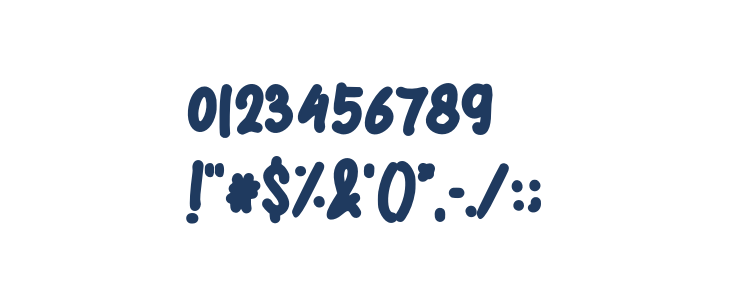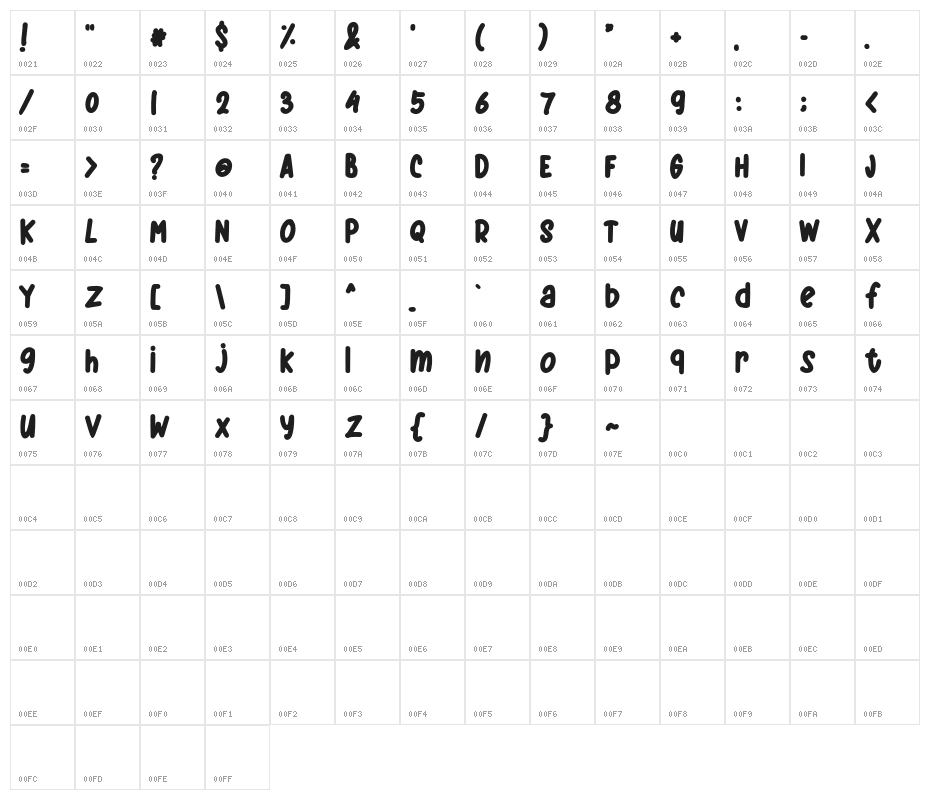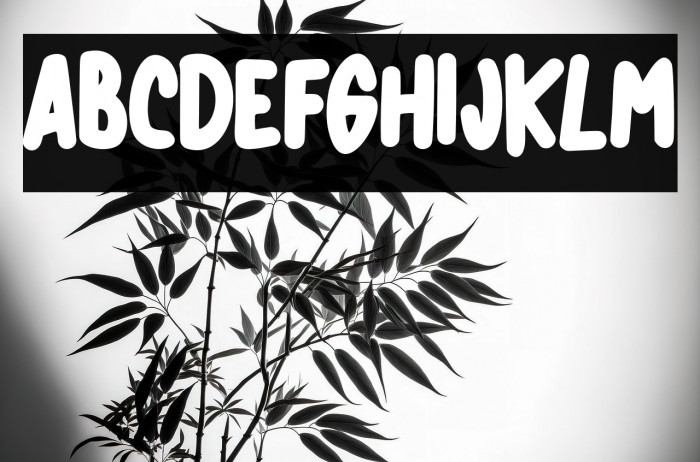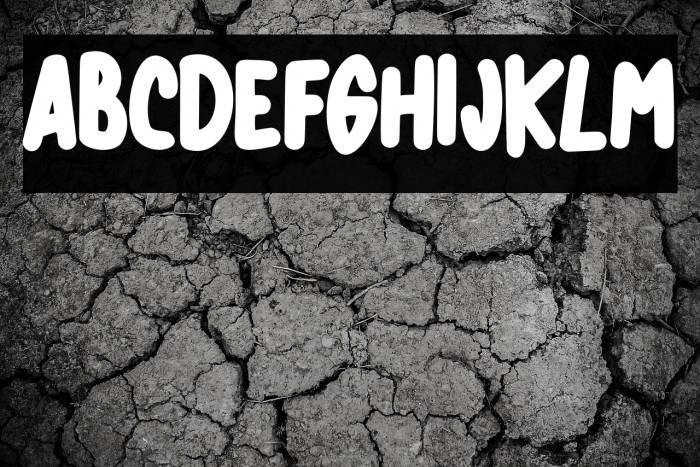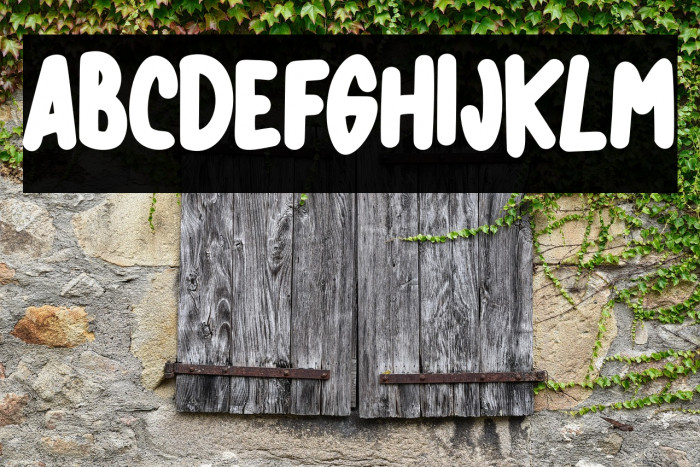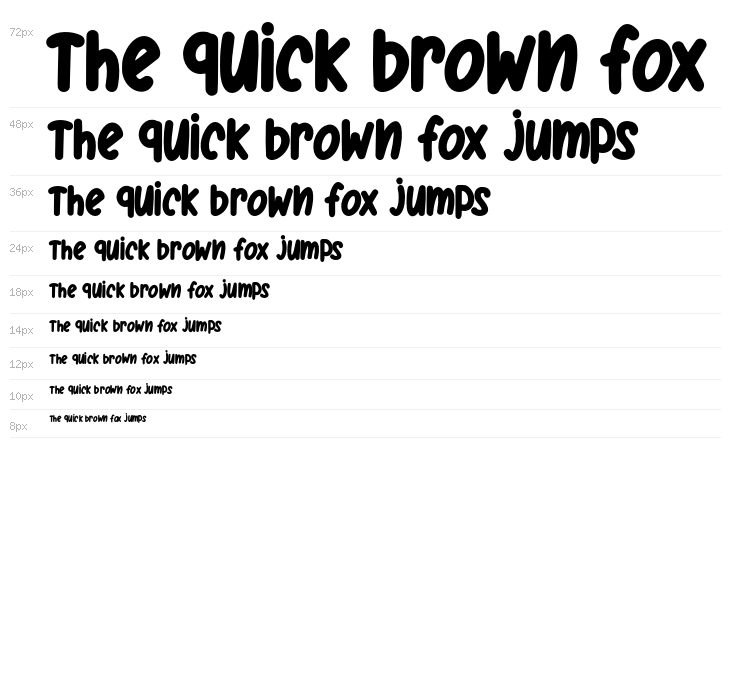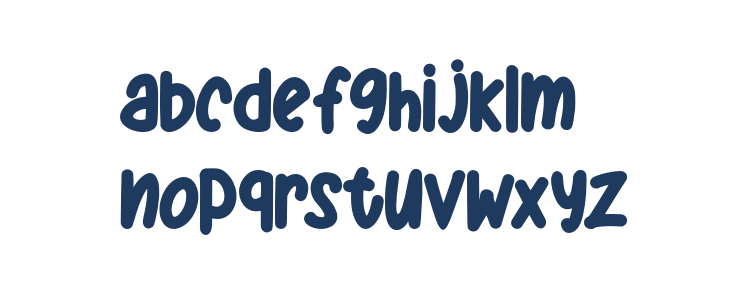
This font features a bold and playful style with rounded edges and a hand-drawn appearance. The characters are thick and have a consistent weight throughout, giving it a strong presence. The uppercase and lowercase letters maintain a uniform style, with a slightly whimsical touch that adds character. Numbers and special characters are designed to match the overall playful aesthetic, making the font suitable for informal and fun designs. The strokes are smooth and the overall look is friendly and approachable.
| Use Case | Logos, Posters, Social Media Graphics |
| Proposed Projects | Ideal for children's books, playful branding, posters, and social media graphics. |